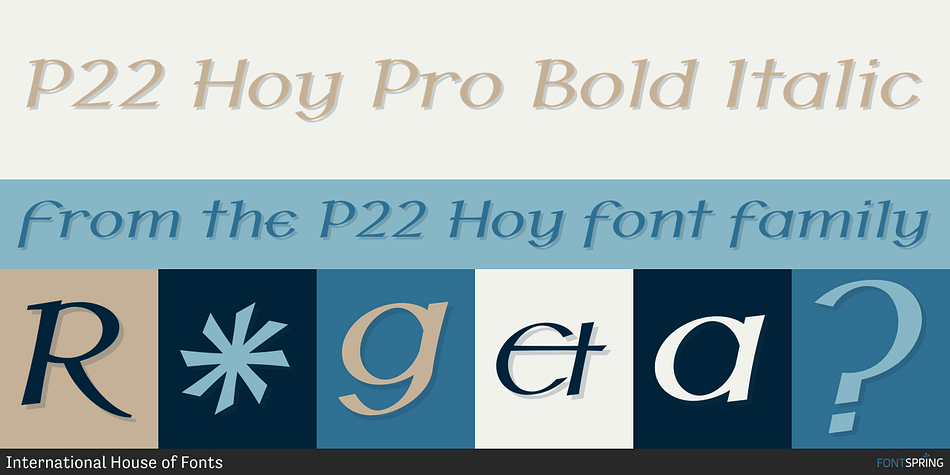
P22 Hoy Pro Bold Italic
P22 Hoy is a historical and art nouveau font family. This typeface has eight styles and was published by International House of Fonts.
Hoy is a decorative font whose name derives from one of the Orkney Islands. Inspired by the wonderful encounter between the Celtic and Norse cultures in this specific geographic location, the font has adapted some of the features of the Insular half-uncial.
It is playful and relaxed, and easily recognizable by its roundness.